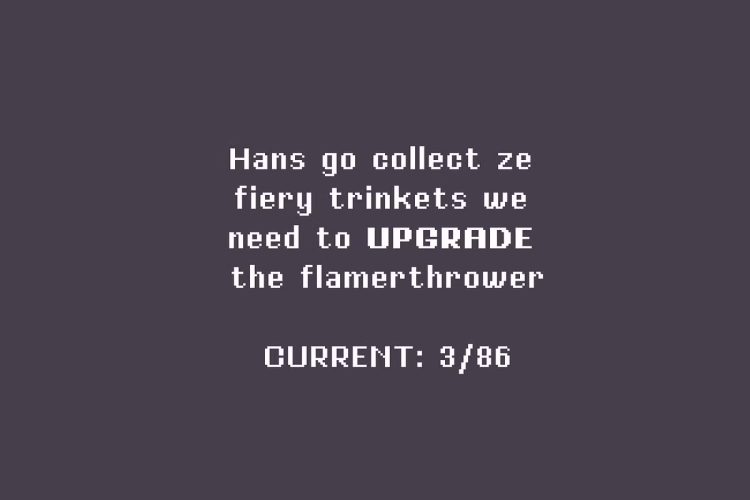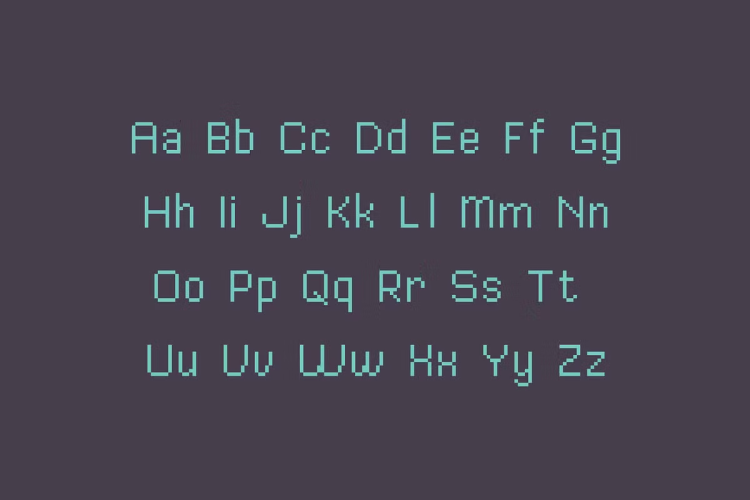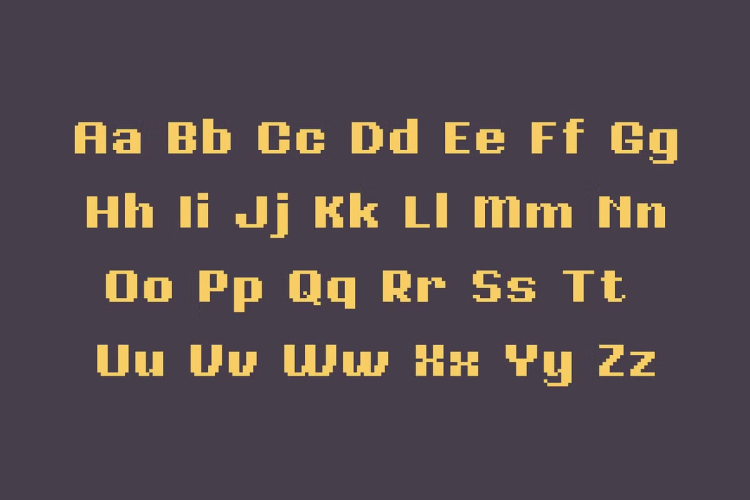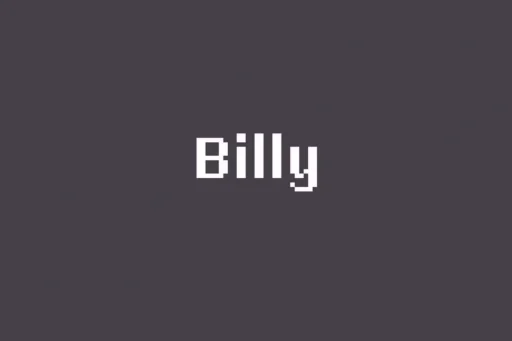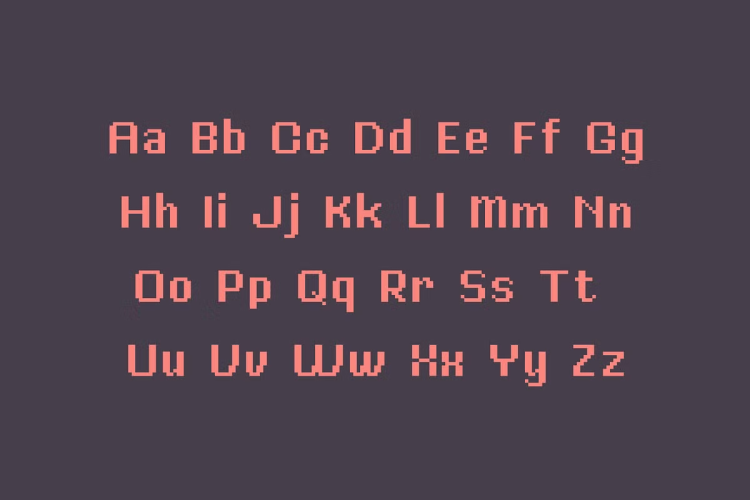
Billy Font
Billy is a pixelated font by Reghardt that captures the retro vibe of old school video games. The game is built on pixel art aesthetics, where everything has a boxy and chunky look. This font style has a classic look and feel to it and comes in three different styles: regular, bold, and light, which allows the designers to make the designs more freely.
Light: The lightest weight of Billy is the most pixelated, while it gives a feeling of softness and tenderness. Suitable for the fine print, headers with an edge of nostalgia or even for the playful accents in your designs.
Regular: This is the standard weight of Billy, it is a font that captures that balance between the bold styles and the readable ones. Ideal for body text, logos, or any other design that needs to be bold and have that old-school feel.
Bold: The boldest weight of Billy is rather powerful and provocative, it catches the eye. It is ideal for the big headlines, title texts, or when you want to create a certain emphasis.
The fact that Billy’s pixelated design is accompanied by weight variations and supports a wide range of purposes, including gaming, app interfaces, branding and apparel.
Where Billy Font works best
Billy Font is built for size: event posters, hero headlines and billboard-style layouts.
High contrast display type like Billy Font reads instantly in thumbnails and motion graphics.
What is Billy Font good for?